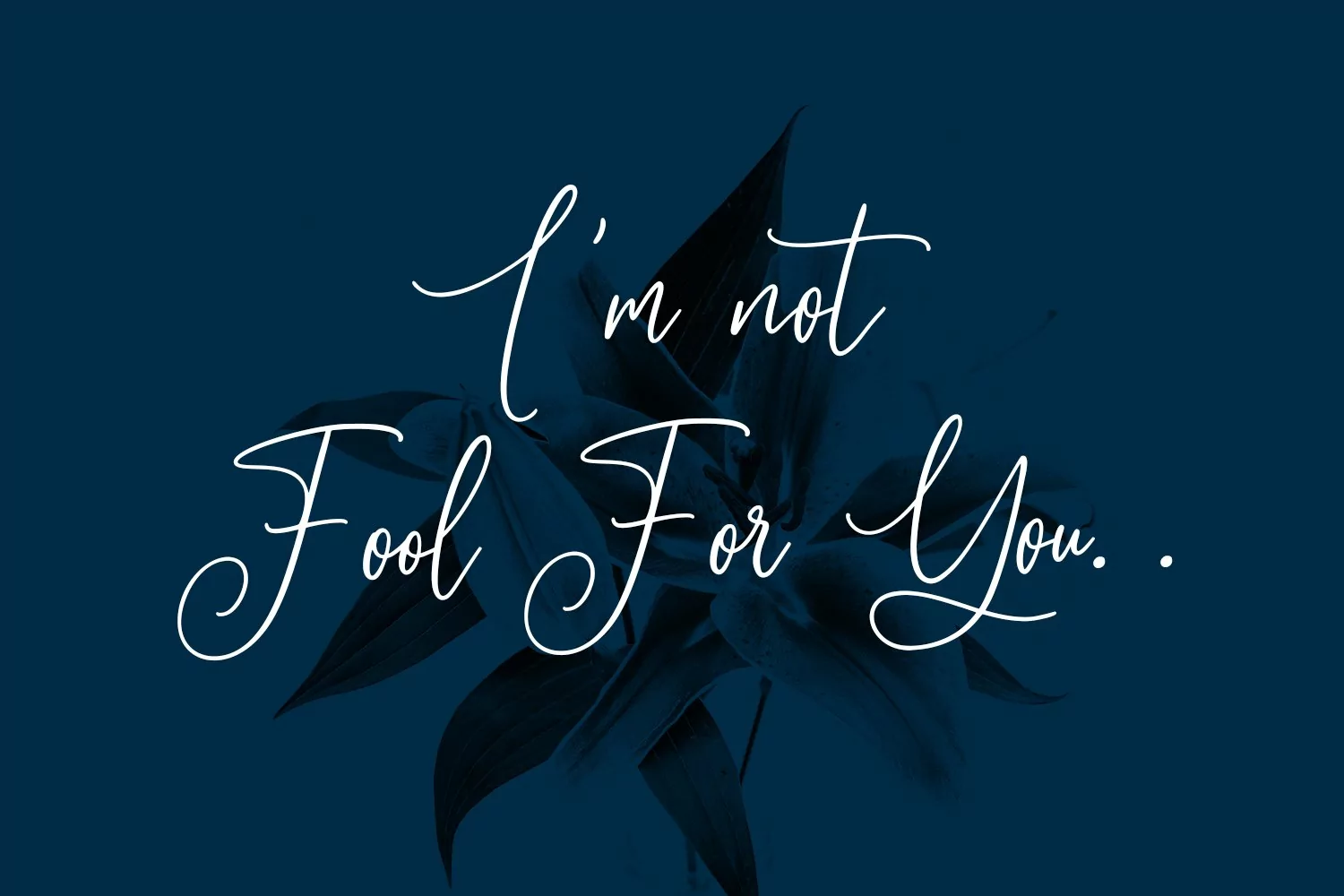
Sallowbliss is a Feminine Cursive Signature font. With light stroke, slanted and fun character with lot of ligature and lowercase alternates. To give you an extra creative work. Sallowbliss font support multilingual more than 100+ language. This font is good for logo design, Social media, Movie Titles, Books Titles, a short text even a long text letter and good for your secondary text font with sans or serif. Make a stunning work with Sallowbliss font.